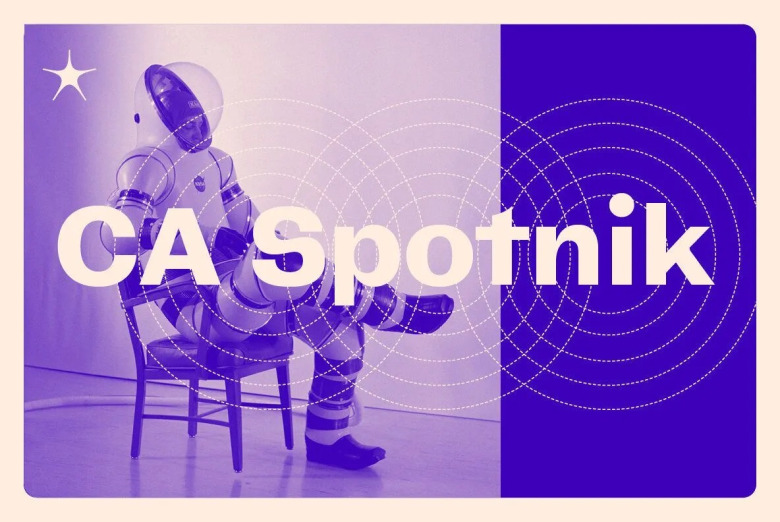
CA Spotnik Font
CA Spotnik Font is a condensed geometric Sans Serif with a vintage look, coming from a variety of typographic styles, This odd shape was quite in keeping with the surroundings. So we took some screenshots and then added some more letters in our experimental fashion to capture what had attracted us so. The result is a grotesque with little contrast; proportions are quite wide with a large x-height.
The more bold the weight, the wider it gets. There is also a standard s if you find the swirly one uncomfortable. The general atmosphere of the typeface is (to borrow a term) “nerdy but friendly”; this is not dependent on the latter detail. It is rather the sum of details following from the original model.
CA Spotnik Sans Serif Font